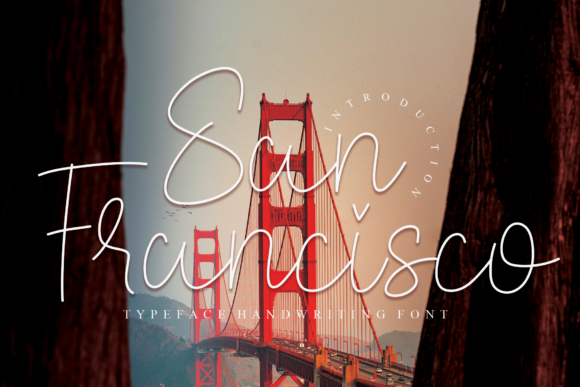
Introducing San Francisco Font, the Enchanting Script Font that Captures the Essence of Charm and Elegance.
With its graceful curves and flowing lines, San Francisco Font is a true masterpiece that will add a touch of magic to your creative projects. Inspired by the vibrant energy of the city by the bay, this font exudes a sense of warmth, romance, and pure joy.
Created by the talented Roronoa zoro.S.P.D., San Francisco Font is a handwritten script font that stands out from the ordinary. Its sweet and delicate nature makes it perfect for adding a personal touch to your designs. Whether you're crafting invitations, creating logos, designing posters, or simply adding a touch of charm to your digital projects, San Francisco Font has the power to transform your ideas into stunning works of art.
With its endless variations, San Francisco Font opens up a world of creative possibilities. Experiment with different colors, sizes, and styles to find the perfect combination that suits your project. Let your imagination run wild and create designs that are as unique and captivating as the city that inspired this font.